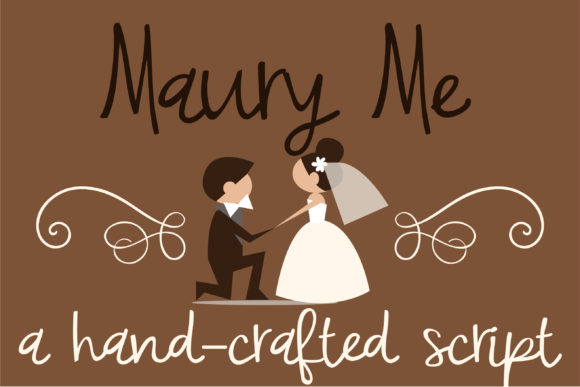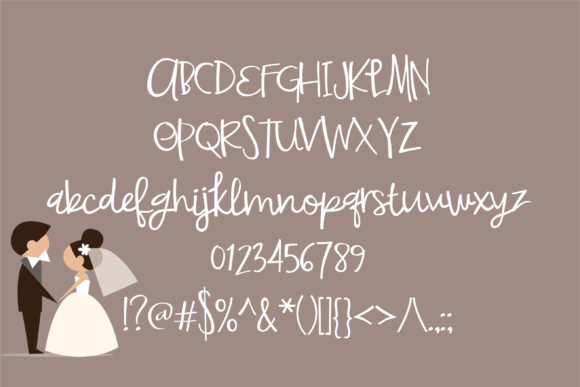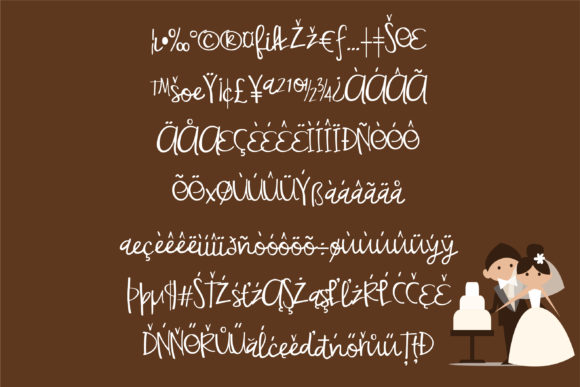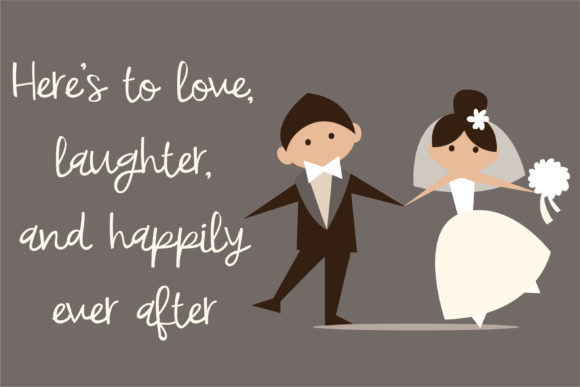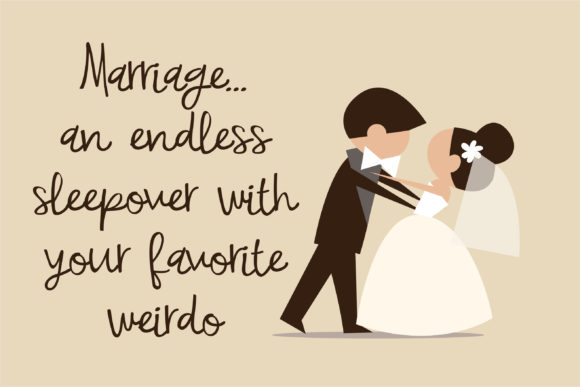
Maury Me Font
About Maury Me Font
Maury Me is a romantic and delicate handwritten script that will inspire any design projects with its authentic charm.